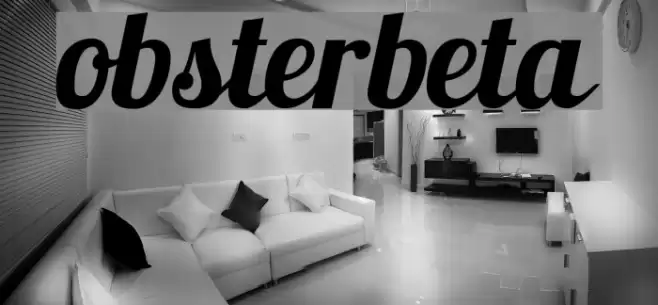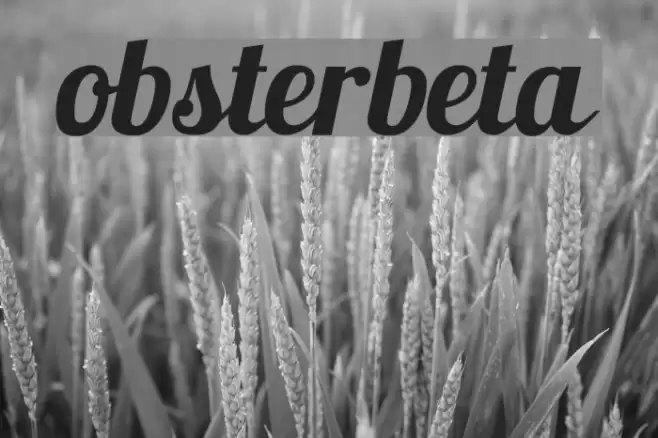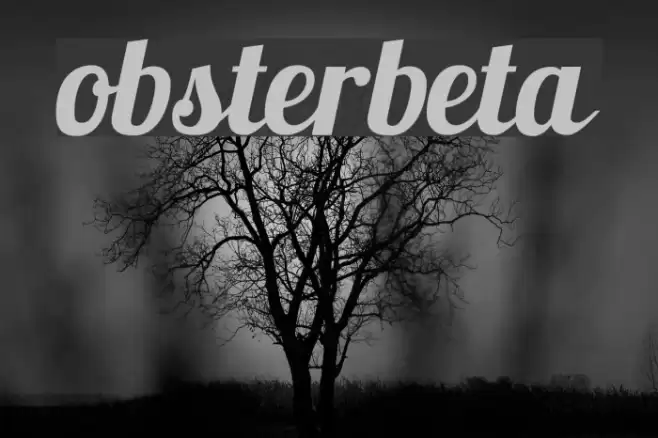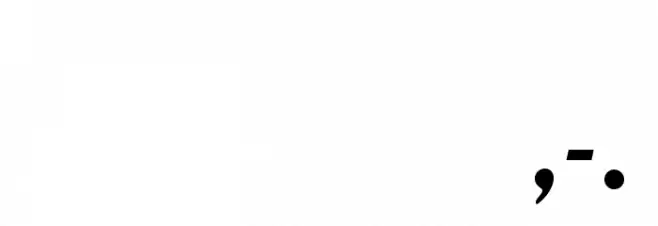
Lobsterbeta9 Font
Lobsterbeta9 Description
This font features a bold, flowing script style with a modern twist. The characters are connected, creating a sense of fluidity and elegance. The strokes are thick and consistent, providing a strong visual impact. The font exudes a sense of sophistication and charm, making it suitable for a variety of creative projects. Its unique style is both eye-catching and versatile, allowing it to be used in both formal and informal contexts. The overall design is cohesive, with each letter seamlessly transitioning into the next, enhancing readability while maintaining an artistic flair.
A bold, flowing script font with a modern, elegant style from Uncategorized fonts.
- Proposed Projects: Ideal for branding, invitations, logos, and decorative headings.
- Use Case: Logos, Invitations, Decorative Headings